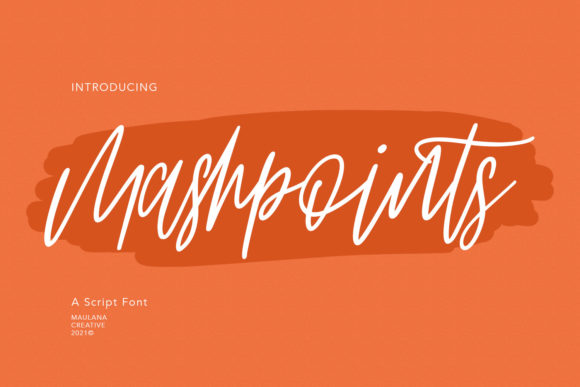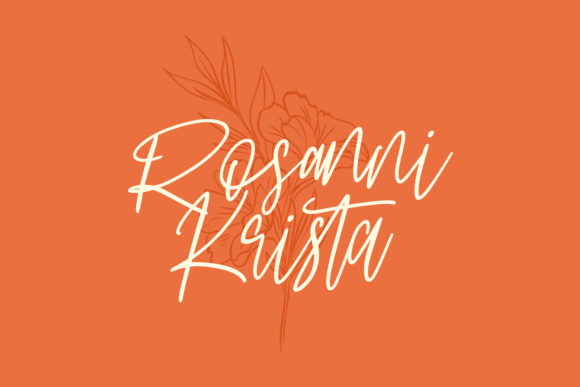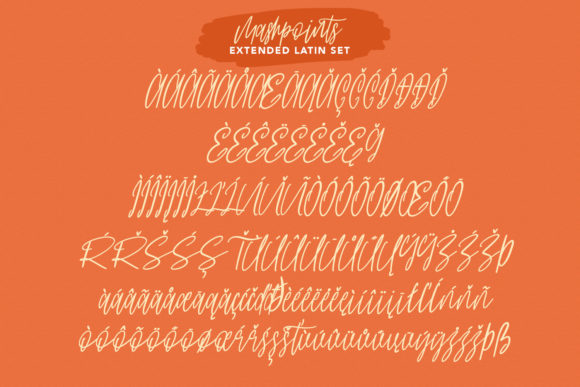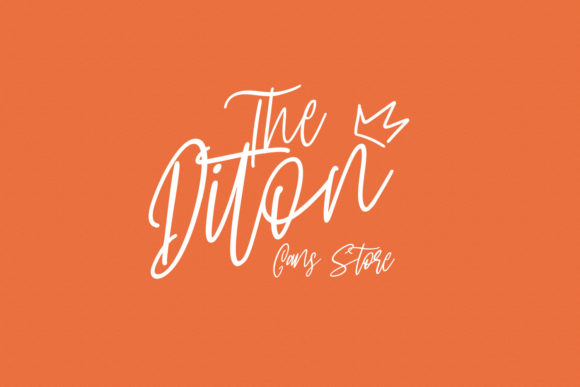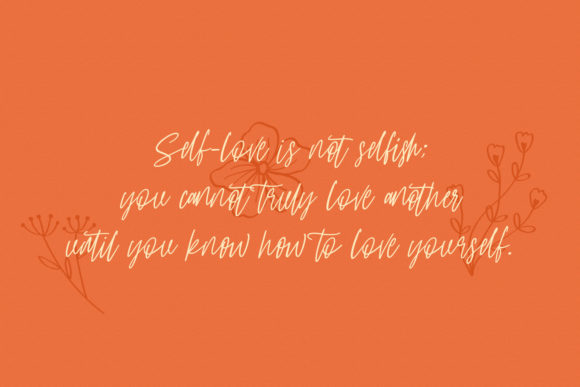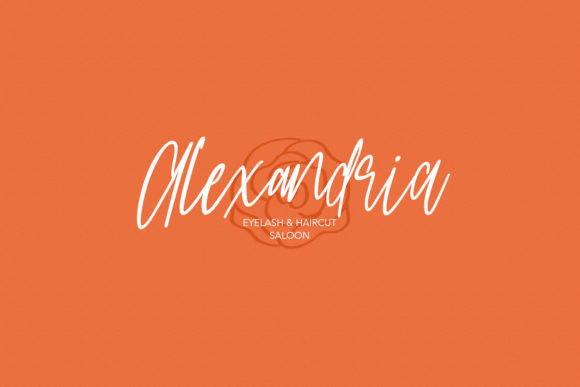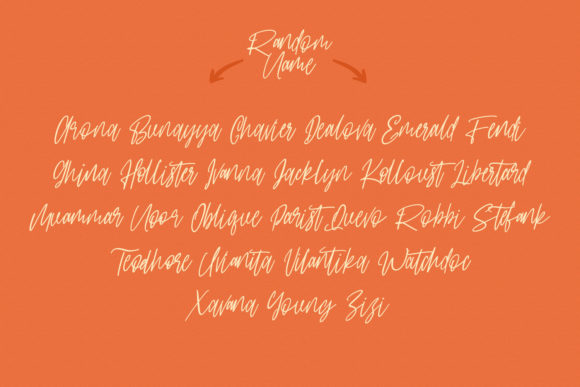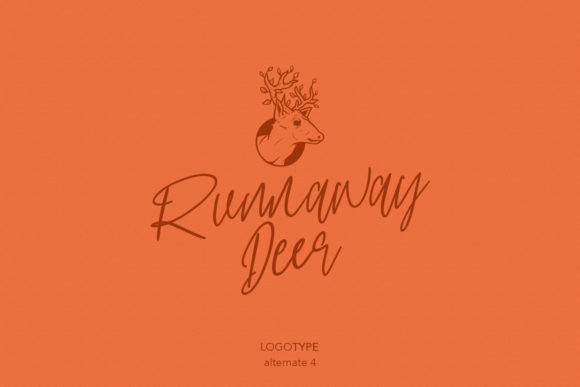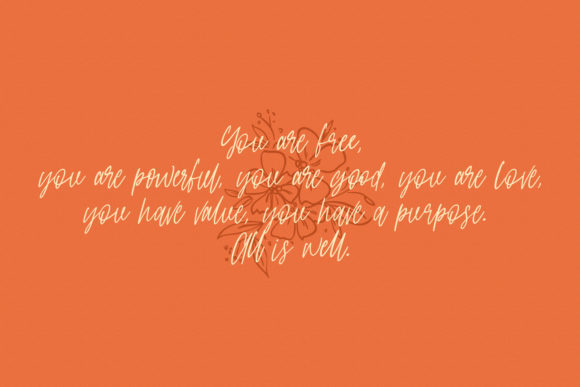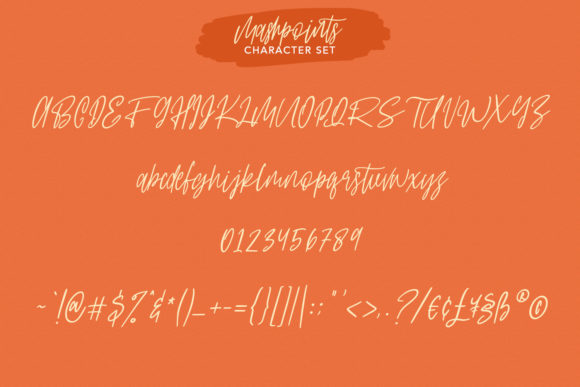
Mashpoints Font
About Mashpoints Font
Mashpoints is a fancy, casual, and thin lettered script font that brings a stylish touch to any design project. With its versatility and unique style, this font is perfect for creating stunning wedding invitations, beautiful stationery art, eye-catching social media posts, and much more.
When it comes to wedding invitations, Mashpoints can add an elegant and sophisticated touch. Its fancy and thin letterforms create a delicate and romantic feel, setting the tone for a memorable and special occasion. Whether you’re designing save-the-dates, wedding invites, or RSVP cards, Mashpoints can enhance the overall aesthetic and make your invitations stand out.
For stationery art, Mashpoints offers a stylish choice. Its casual yet refined appearance adds a touch of sophistication to note cards, letterheads, and other stationery items. The thin letterforms and flowing strokes create an elegant and polished look, making your stationery designs visually appealing and eye-catching.
Social media posts can benefit from the stylish flair of Mashpoints. The fancy and casual nature of the font helps your posts stand out and grab attention. Whether it’s quotes, announcements, or promotional graphics, Mashpoints adds a touch of elegance and personality to your social media presence, making your content more engaging and visually appealing.
Beyond weddings, stationery, and social media, Mashpoints can be used for various other design projects. Its versatile style and thin letterforms make it suitable for branding materials, packaging, logo designs, product labels, and more. Whether you’re designing for a luxury brand, a fashion line, or a creative business, Mashpoints can help you create a distinctive and stylish look.
In summary, Mashpoints is a fancy, casual, and thin lettered script font that adds a stylish touch to your design projects. Its versatility allows it to be used for creating wedding invitations, stationery art, social media posts, and more. Fall in love with its incredibly versatile style and let it bring a touch of elegance to your designs.